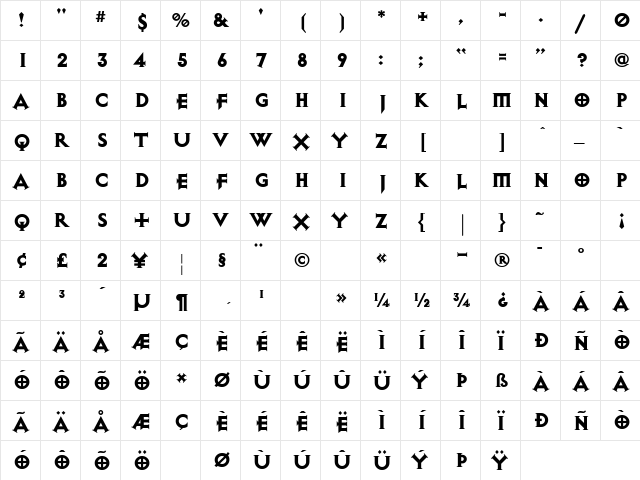
Diablo Heavy
Design Context for Diablo Typeface
Diablo is a composed and adaptable typeface that performs quietly and consistently across a wide range of design contexts.